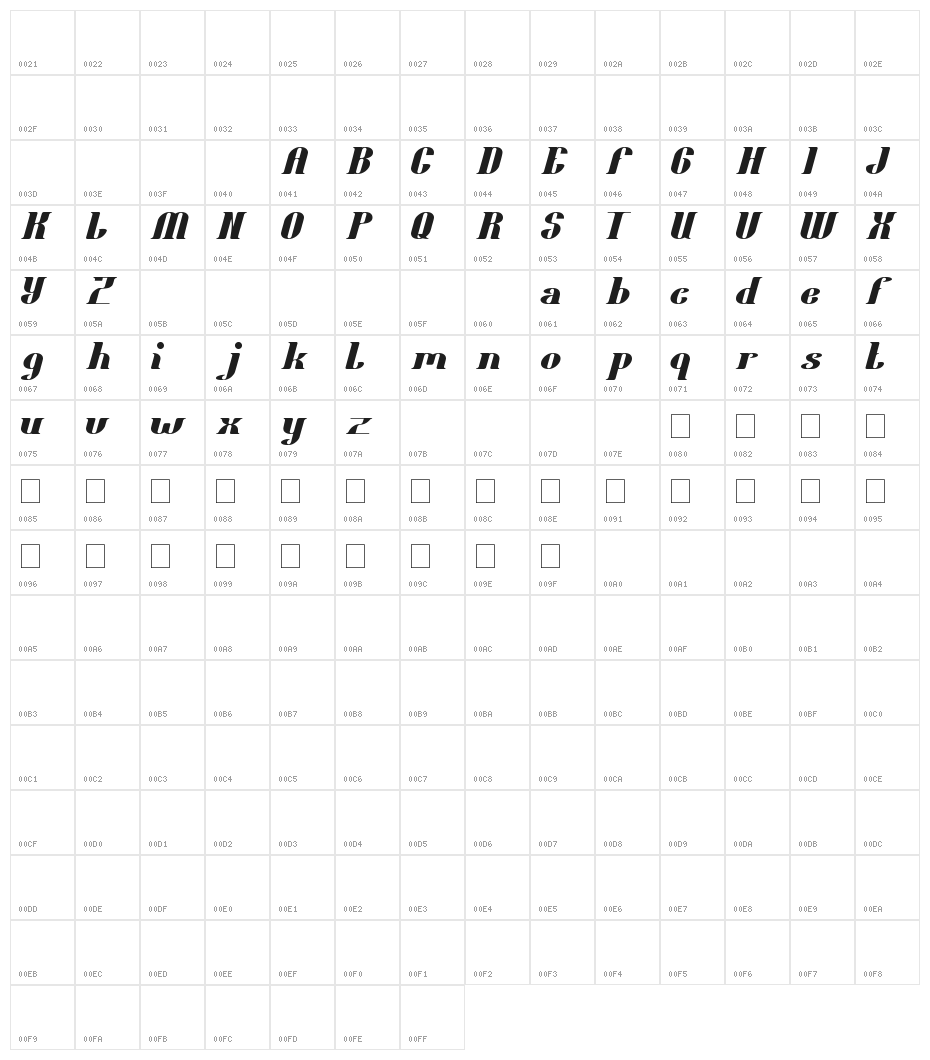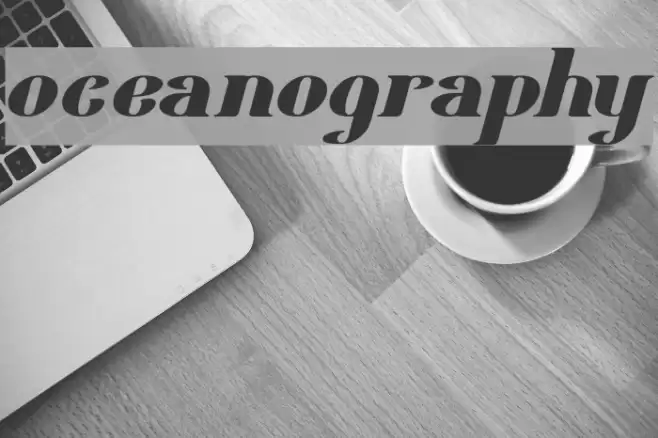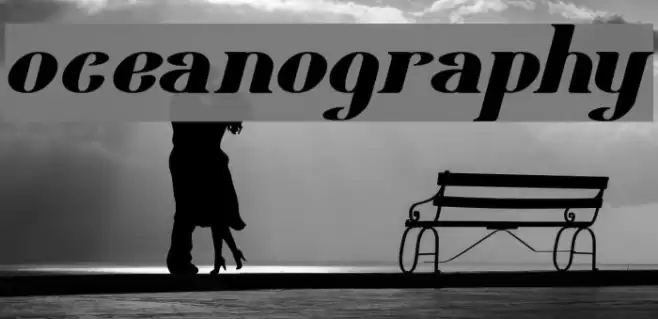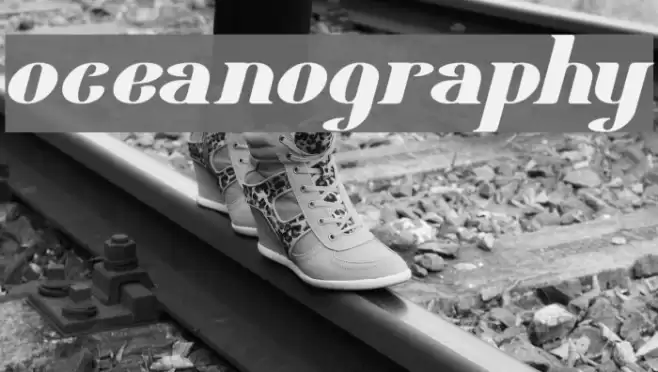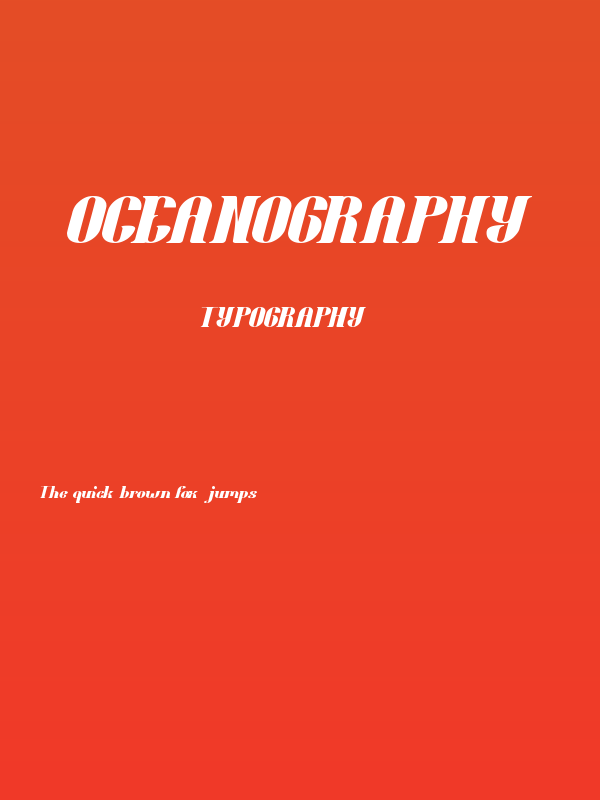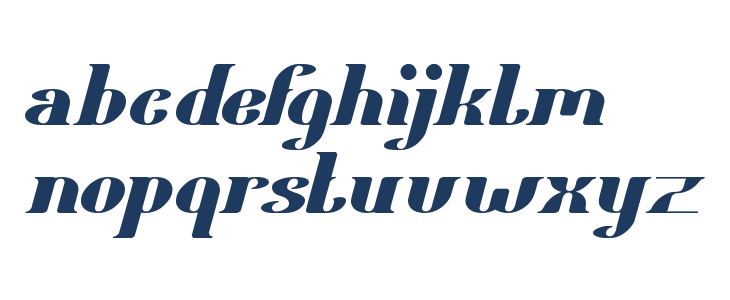
oceanography Font
oceanography Description
This font exhibits a bold and dynamic style, characterized by its thick, sweeping strokes and slightly condensed letterforms. The uppercase letters have a strong presence with a slight slant, adding a sense of motion and energy. The lowercase letters maintain this dynamic flow, with unique curves and angles that give the font a distinctive personality. The overall design is reminiscent of vintage signage or retro advertisements, making it ideal for projects that require a touch of nostalgia or bold statement. The font's high contrast between thick and thin strokes enhances its visual impact, ensuring readability while maintaining an artistic flair.